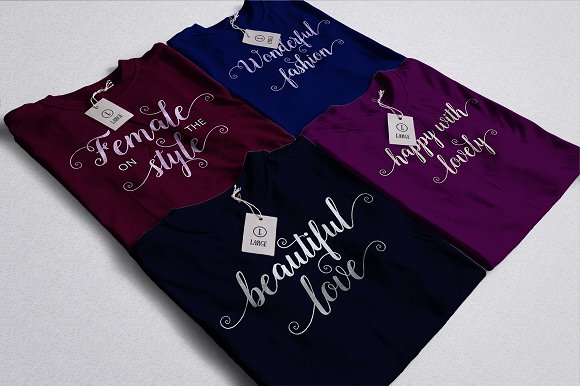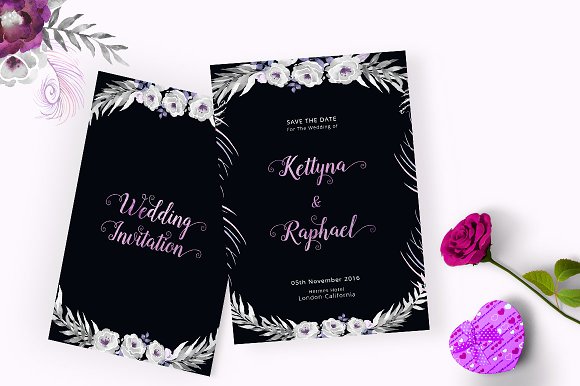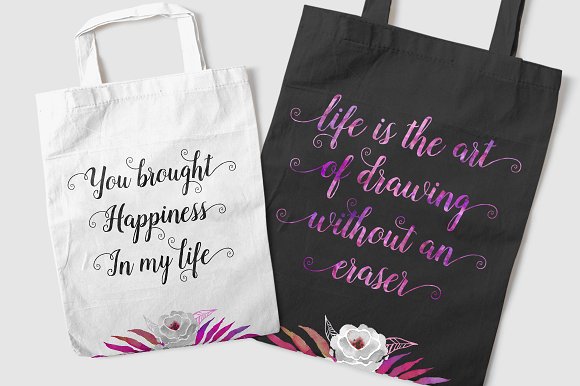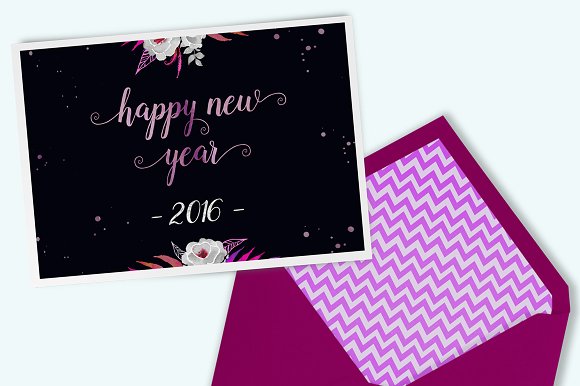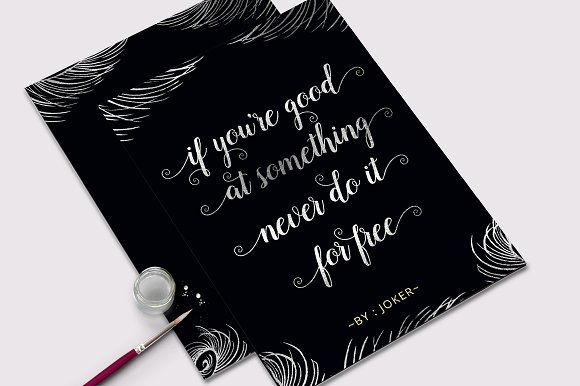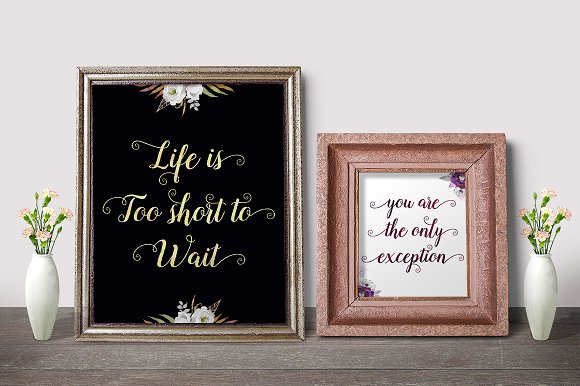
Introduction to Lady Love Font
As a designer, have you ever been stuck in a creative rut, searching for the perfect font to bring your project to life? It’s a feeling we’ve all been there – pouring over design resources, trying to find that elusive combination of style and sophistication. But what if I told you there’s a font that can help you break free from the ordinary and add a touch of vintage charm to your next creative project?
Meet the Lady Love Font, a stunning handwritten font that combines the elegance of a bygone era with the modern twist of a free download. With its high-quality design and transparent background, this font is the perfect addition to any design project, whether you’re working on a romantic wedding invitation or a whimsical children’s book. And the best part? It’s available for free download, making it an invaluable resource for designers of all levels.
Key Features of Lady Love Font
- High-quality, hand-drawn design resource ideal for creative projects, offering a unique and elegant touch.
- Includes a range of characters, including uppercase and lowercase letters, numbers, and punctuation marks, making it a versatile design tool.
- Designed with a feminine touch, the Lady Love Font is perfect for projects requiring a touch of elegance and sophistication.
Honest Review: Lady Love Font
I recently stumbled upon the Lady Love Font, and I must say, it’s a lovely addition to any design resource collection. The font is available for a free download, which is always a bonus.
What works well: ✨ The font features a high-quality design that’s perfect for any creative project. The elegant script and beautiful details make it ideal for wedding invitations, greeting cards, or any other romantic-themed design. The transparent background is also a nice touch, allowing for easy integration with any background image or color.
Here are some of the key features:
- Beautiful script design
- High-quality vector graphics
- Perfect for wedding invitations, greeting cards, and other romantic-themed designs
Limitations: ⚠️ The font is only available in a few font styles, which might limit its versatility in some projects. Additionally, the font is not suitable for large-scale text, as it may become difficult to read.
Overall impression: I’m impressed with the Lady Love Font’s design and versatility. It’s a great resource for designers who want to add a touch of elegance to their creative projects. Just be aware of its limitations and use it accordingly.
Common Use Cases for Lady Love Font
The Lady Love Font is suitable for various creative projects, including wedding invitations, greeting cards, and social media graphics. Its transparent background makes it easy to use in combination with other design elements.